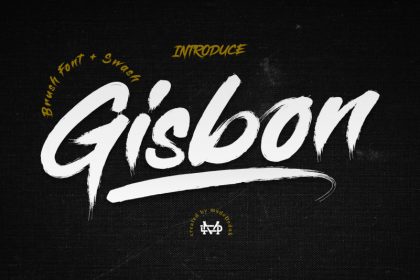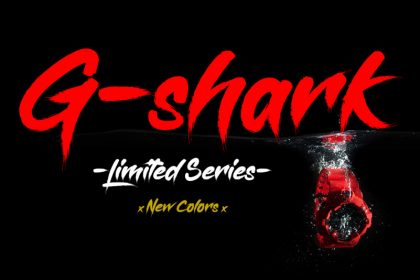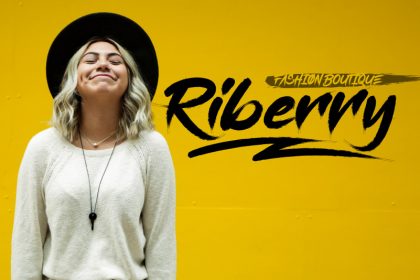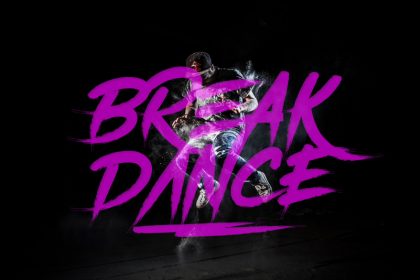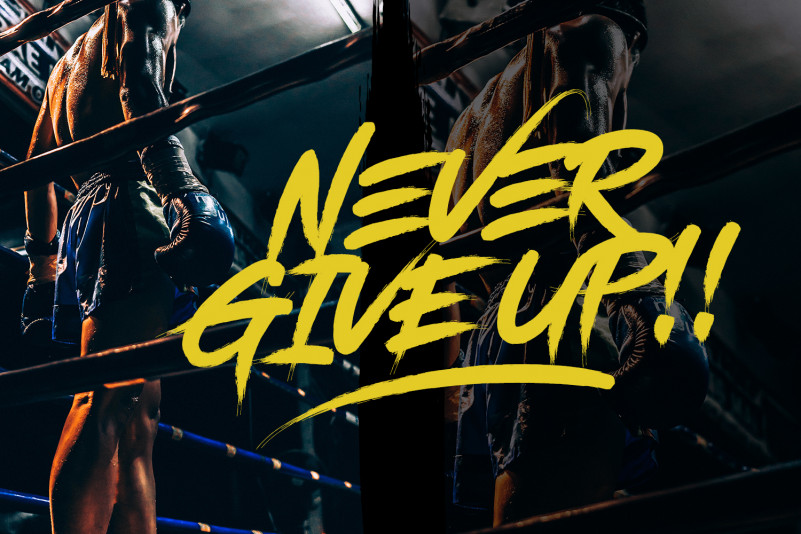
Gisbon – Brush Font
Gisbon Font is a Modern Brush Typeface. This font perfect for poster design, book covers, merchandise, fashion campaigns, newsletters, branding, advertising, magazines, greeting cards, album covers, and quote designs and more.